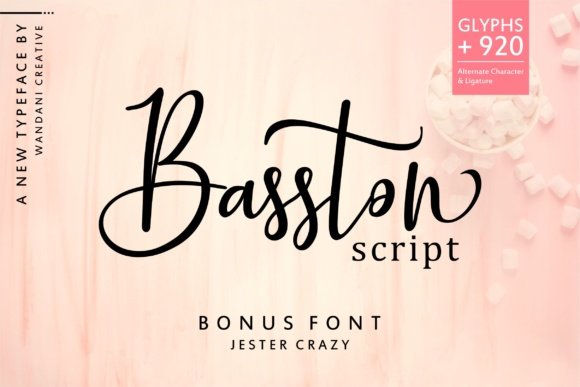
The Perfect Script Font for Your Next Design Project
Have you ever found yourself stuck in front of your computer, staring at a blank page, desperately trying to come up with the perfect design for your client’s logo or branding? We’ve all been there. But what if I told you that the key to unlocking your creativity lies in the right font? Enter the Basston Script Font, a stunning script font that’s sure to elevate your designs to the next level.
With its elegant and charming look, the Basston Script Font is perfect for creating beautiful calligraphy designs that are sure to impress. And with plenty of alternate characters and ligatures at your disposal, you’ll be able to create truly unique and eye-catching designs with ease. Whether you’re working on a branding project, packaging design, or just want to add a touch of elegance to your next design, the Basston Script Font is an invaluable tool that’s sure to become your new go-to font.
Basston Script Font Key Features
- Font Style: Elegant script font with a modern twist, perfect for creative projects and designs.
- Unique Characteristics: Distinctive letterforms, swashes, and flourishes add a touch of sophistication and elegance to any design.
Basston Script Font Review
Overall, I’m quite impressed with the Basston Script Font. Here are some things that work well:
- ✨ Beautiful, elegant design: The Basston Script Font has a lovely, handwritten feel to it that’s perfect for titles, quotes, or other text where you want to add a touch of sophistication.
- ✨ Wide language support: Basston Script Font supports a wide range of languages, making it a great option for projects that require multilingual text.
- ✨ Highly customizable: The font includes a range of OpenType features that allow you to fine-tune its appearance to suit your design needs.
However, I do have a few concerns:
- ⚠️ Limited legibility at small sizes: While the Basston Script Font looks stunning at larger sizes, it can become a bit hard to read at smaller sizes. This might be a problem if you need to use it for body text.
- ⚠️ Not ideal for digital use: The font’s high contrast and delicate lines can make it difficult to read on screens, particularly on devices with lower resolutions.
Overall, I’d recommend the Basston Script Font for projects where you need a high-end, elegant look. Just be sure to use it judiciously and pair it with a clear, easy-to-read font for body text.
Basston Script is perfect for creating elegant and sophisticated designs, such as wedding invitations, birthday cards, and graduation announcements. To get the most out of Basston Script, try combining it with other fonts and adjusting the font size, color, and spacing to create a visually appealing design.